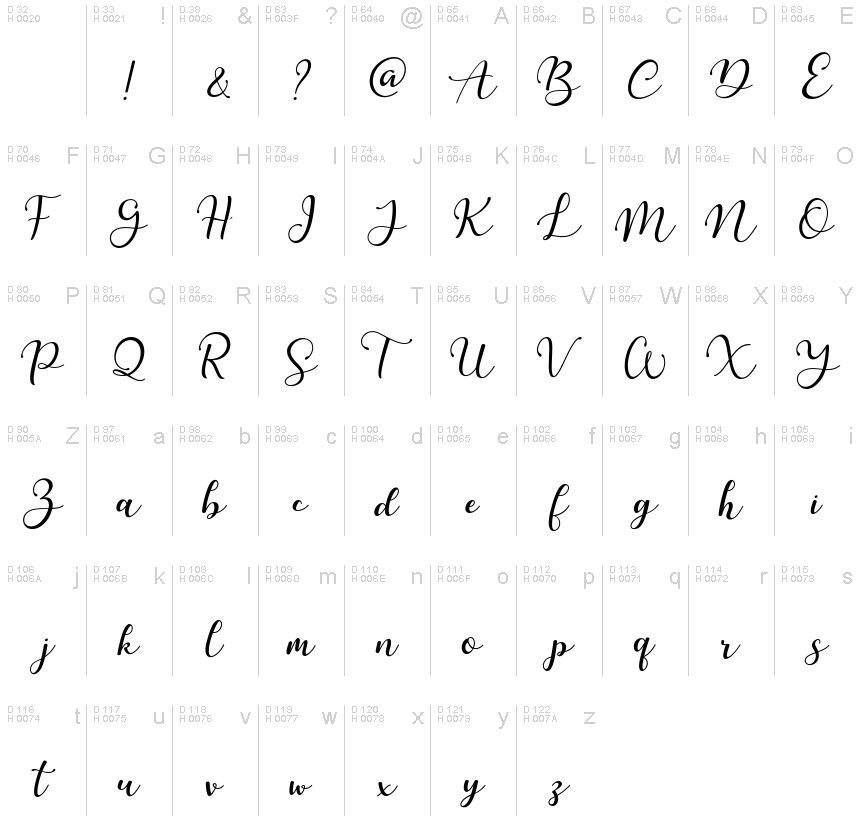
Martinesse
Martinesse is a captivating calligraphic font that exudes elegance and sophistication. The script-like strokes and fluid lines create a sense of graceful movement, lending a touch of refined artistry to any design. Its distinctive flourishes and intricate letterforms make it an ideal choice for various applications, from high-end branding and editorial layouts to wedding invitations and event materials. The font's versatility allows it to seamlessly transition between formal and casual settings, effortlessly elevating the visual appeal of any project.
Martinesse's calligraphic style lends itself well to projects that require a personal, handcrafted touch. Its expressive, organic forms bring a sense of warmth and character to text, making it a compelling option for personal correspondence, packaging design, and more. The font's versatility and timeless aesthetic make it a valuable asset for designers seeking to craft designs with a touch of timeless sophistication.